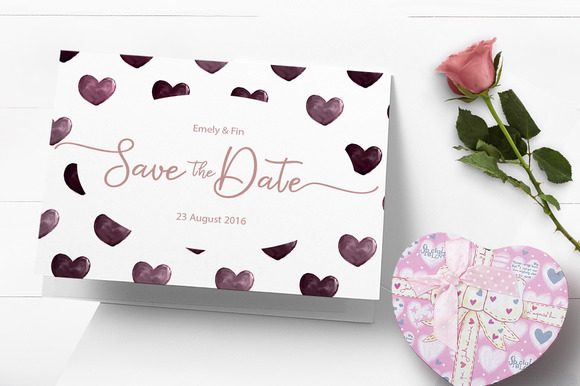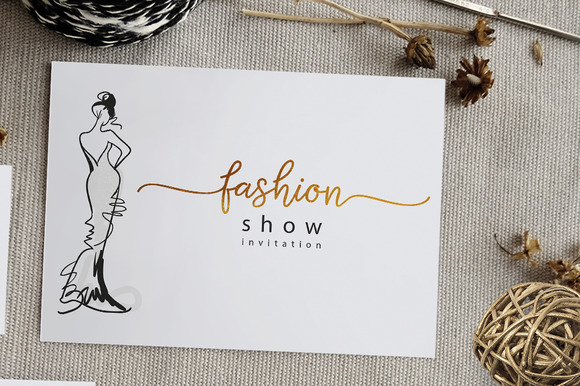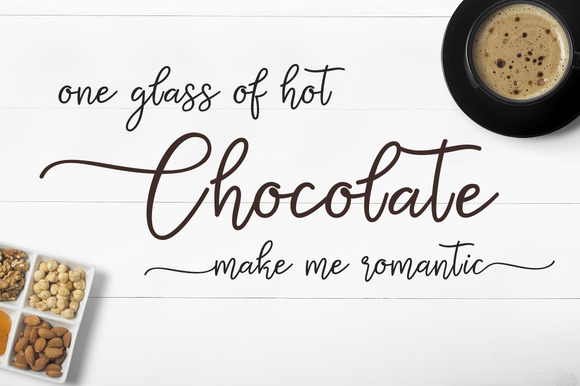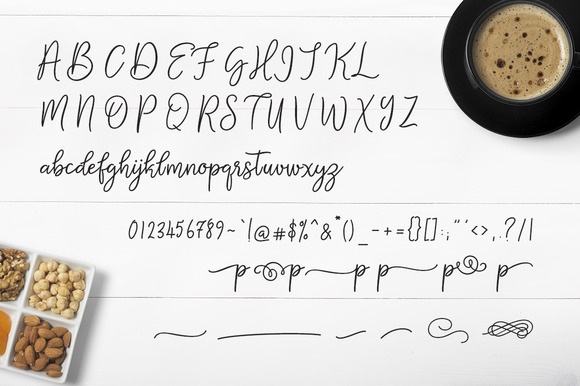
Introduction to Philosophy Script Font
The Philosophy Script is a stunning monoline typeface packed with a large range of different glyphs.
Key Features of Philosophy Script Font